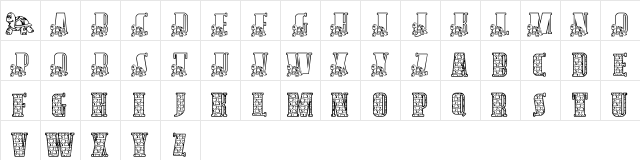
LMS Slow And Steady Regular
Design Context for LMS Slow And Steady Typeface
LMS Slow And Steady is a composed and adaptable typeface that performs quietly and consistently across a wide range of design contexts.